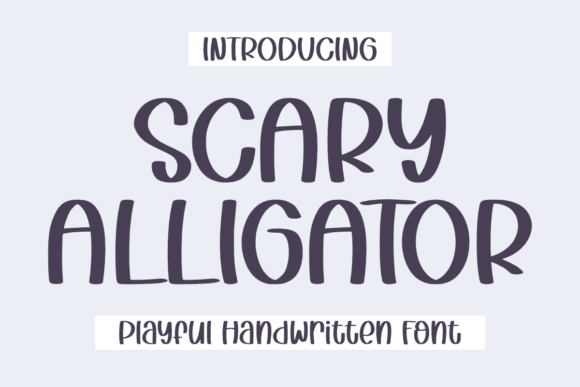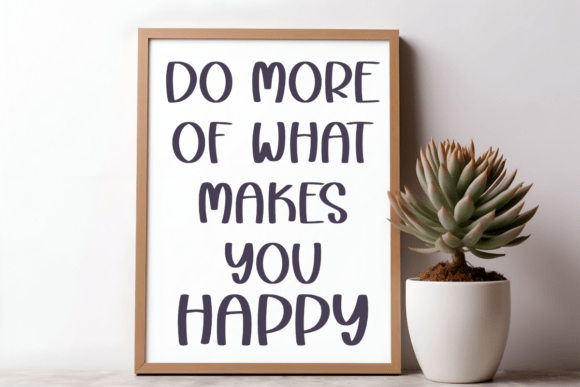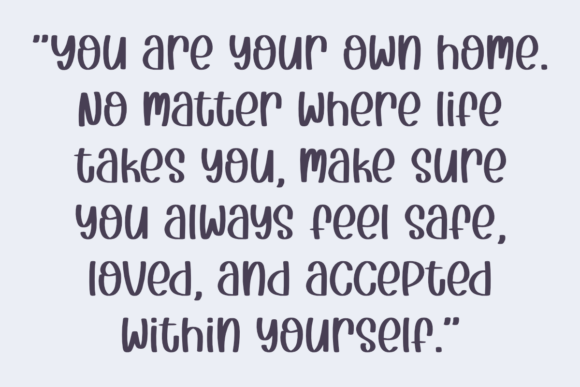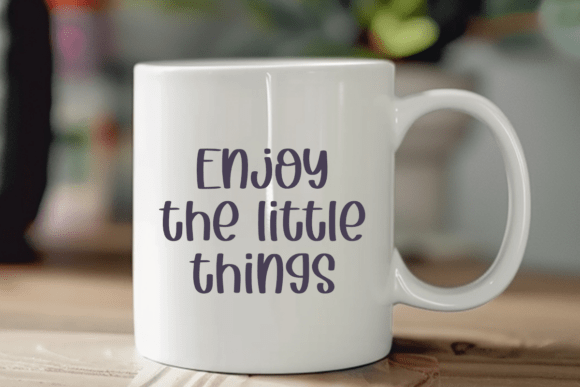
Scary Alligator Font
About the Scary Alligator Font
Step up your design game with Scary Alligator Font, a font that exudes confidence and style. Scary Alligator is a fun and whimsical font that’s perfect for crafts, planners, KDP, stickers, greeting cards, and more. With its cute and friendly style, it works great for Cricut, sublimation, and creative DIY projects. Ideal for crafters, designers, and makers!